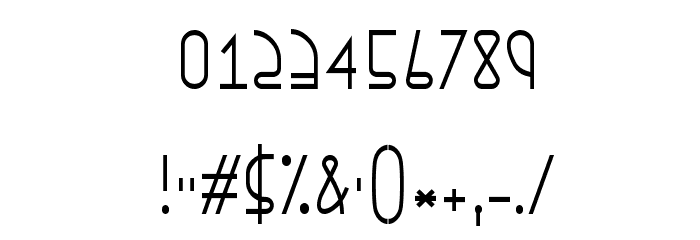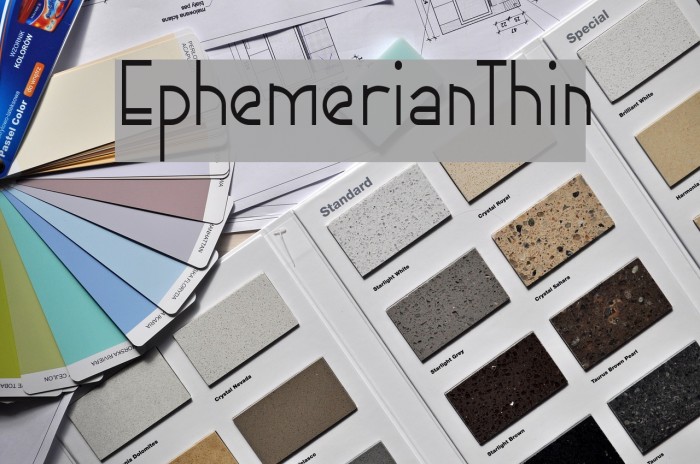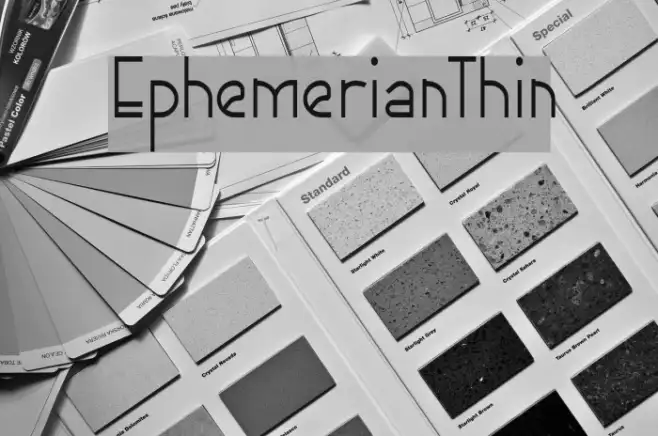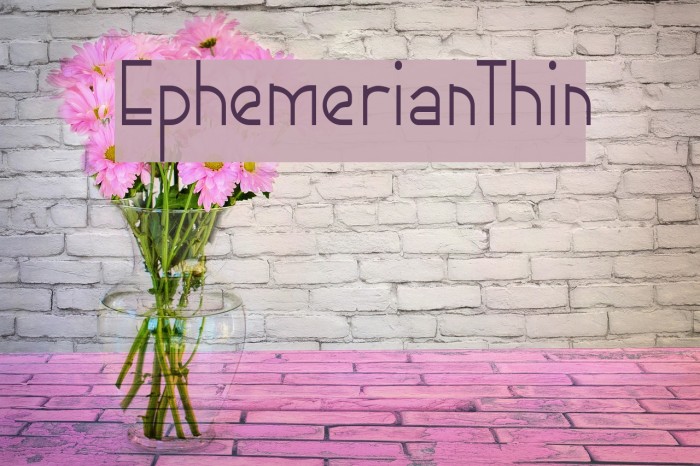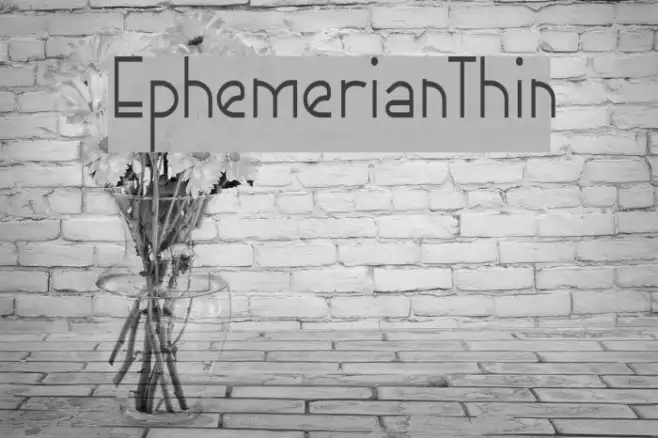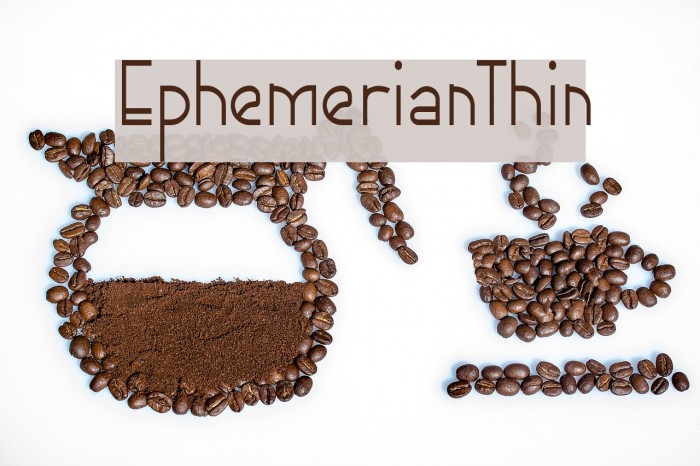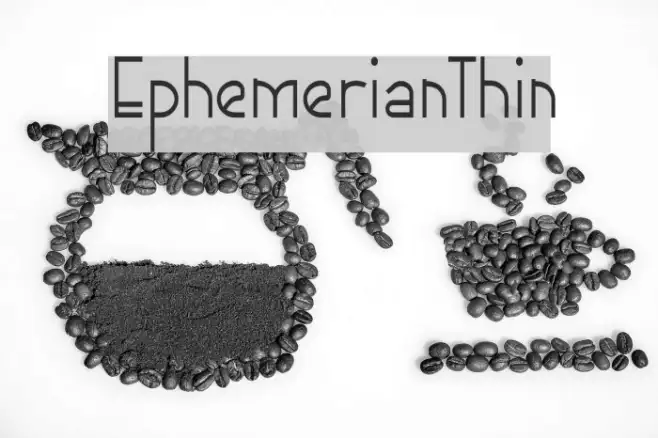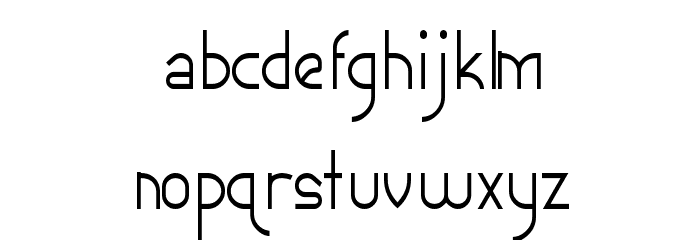
EphemerianThin Font
EphemerianThin Description
This font features a unique and modern design with a geometric and slightly futuristic aesthetic. The characters are thin and elongated, giving them a sleek and elegant appearance. The uppercase letters have a distinct angularity, while the lowercase letters maintain a consistent style with subtle curves. The numerals are clear and easy to read, with a similar geometric influence. Special characters are well-integrated, maintaining the overall design consistency. The font's thin strokes and minimalistic design make it suitable for contemporary and stylish applications.
| Proposed Projects | Ideal for branding, tech-related designs, modern posters, and minimalist websites. |